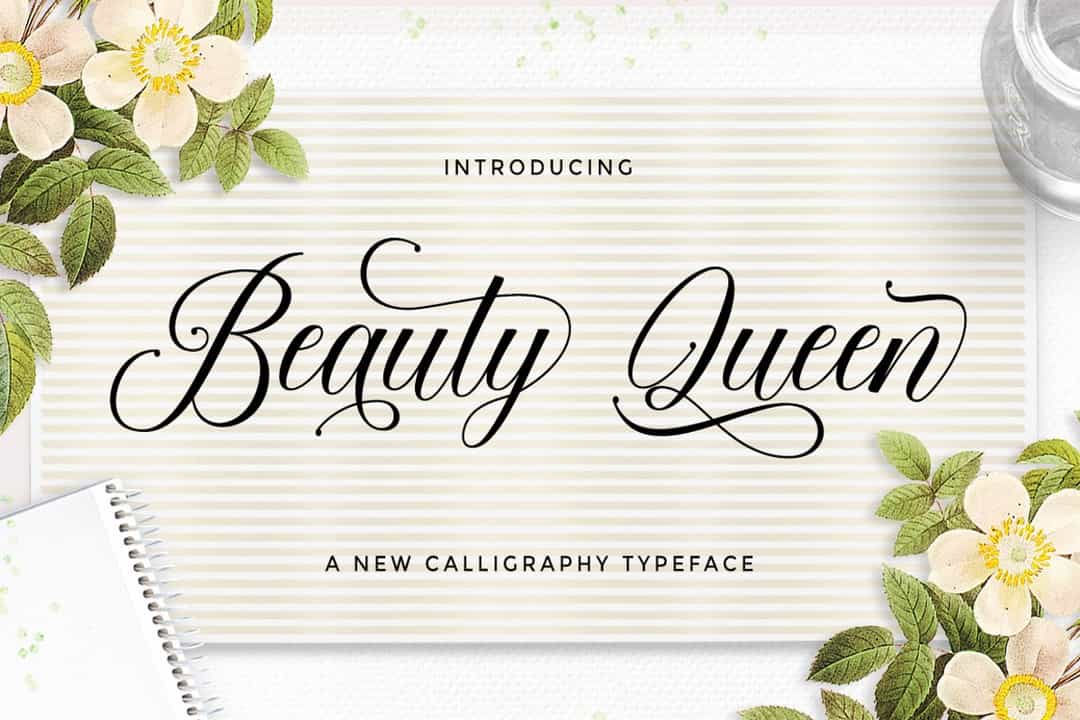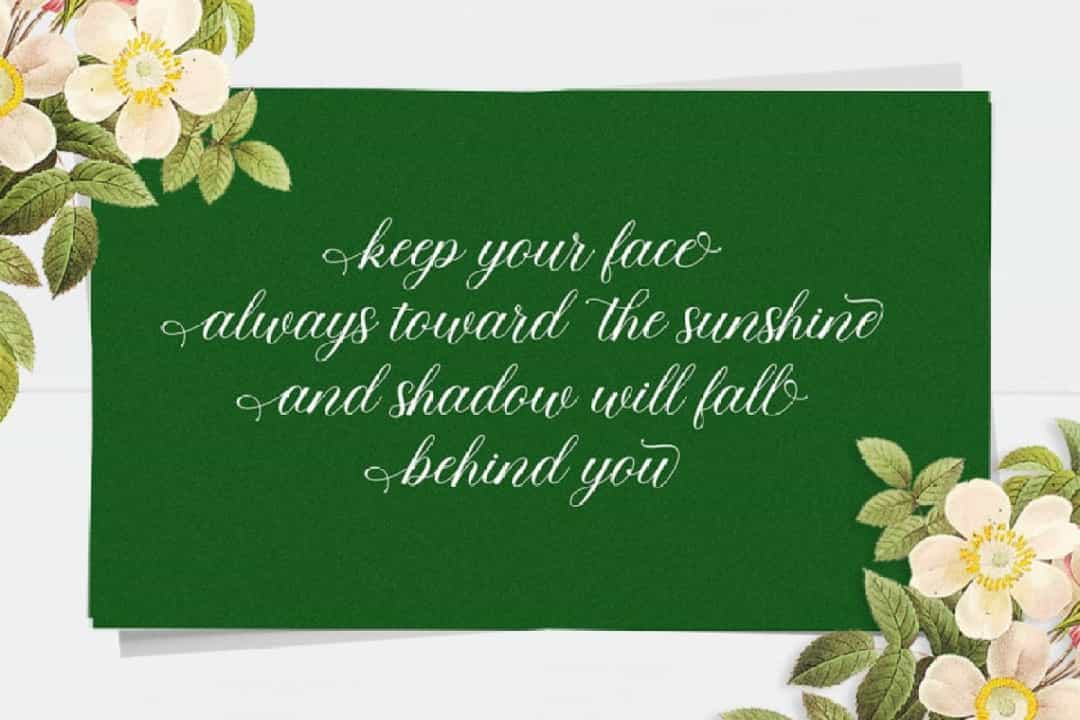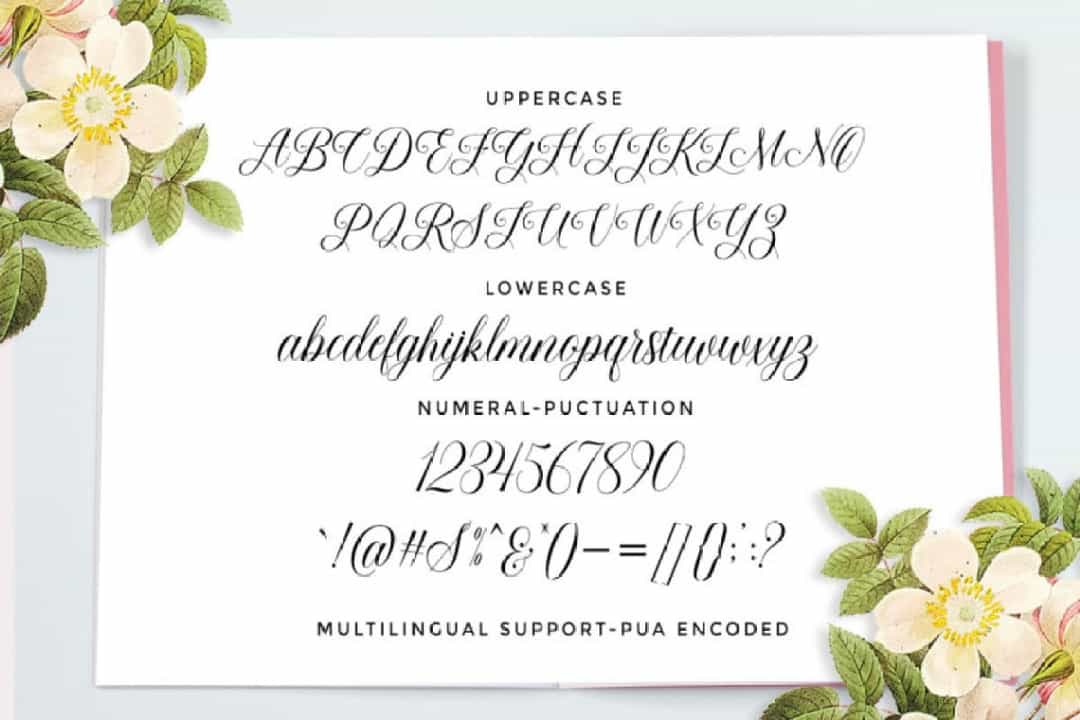
Beauty Queen is one of the most elegant calligraphy fonts that contain unique and alternate style as well as the italics. It contains a huge number of Open Type stylistic features – graceful ligatures, swashes, alternatives – that is why this font will be perfect for logos, greetings, branding, invitations, quotes, printing, crafting and other creative works. Lowers are not left behind as they are came with alternates ends and beginning swash which makes the font exquisite!